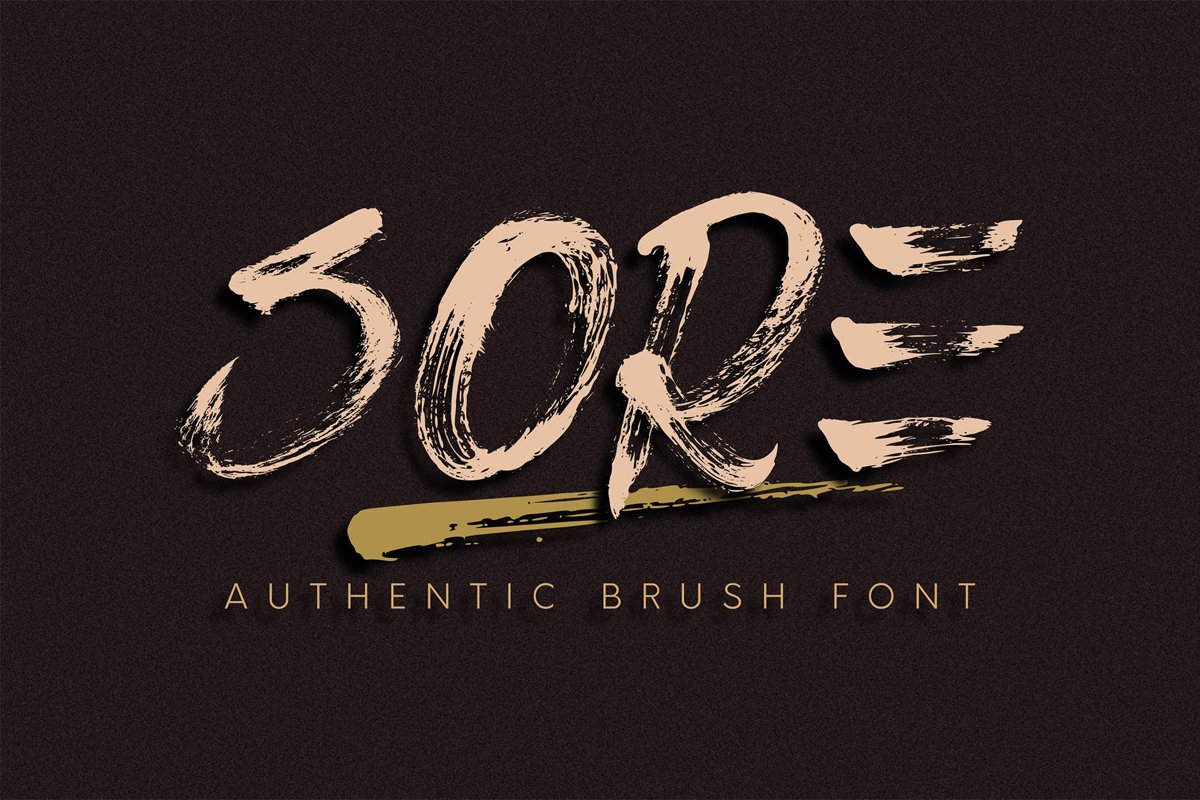
Sore
SORE! An authentic brush font, real brush texture. All caps characters. SORE font is suitable for branding, logotype, apparel, T-shirt, Hoodie, product packaging, quotes, flyer, poster, advertising, etc.